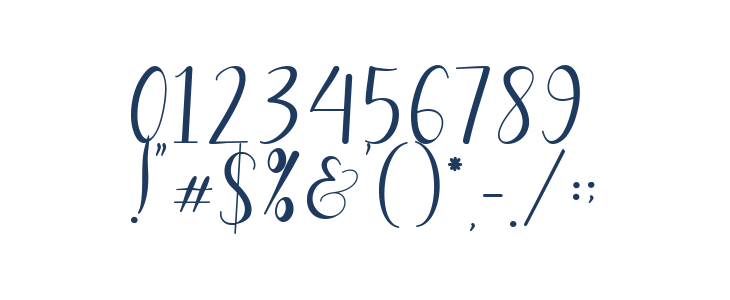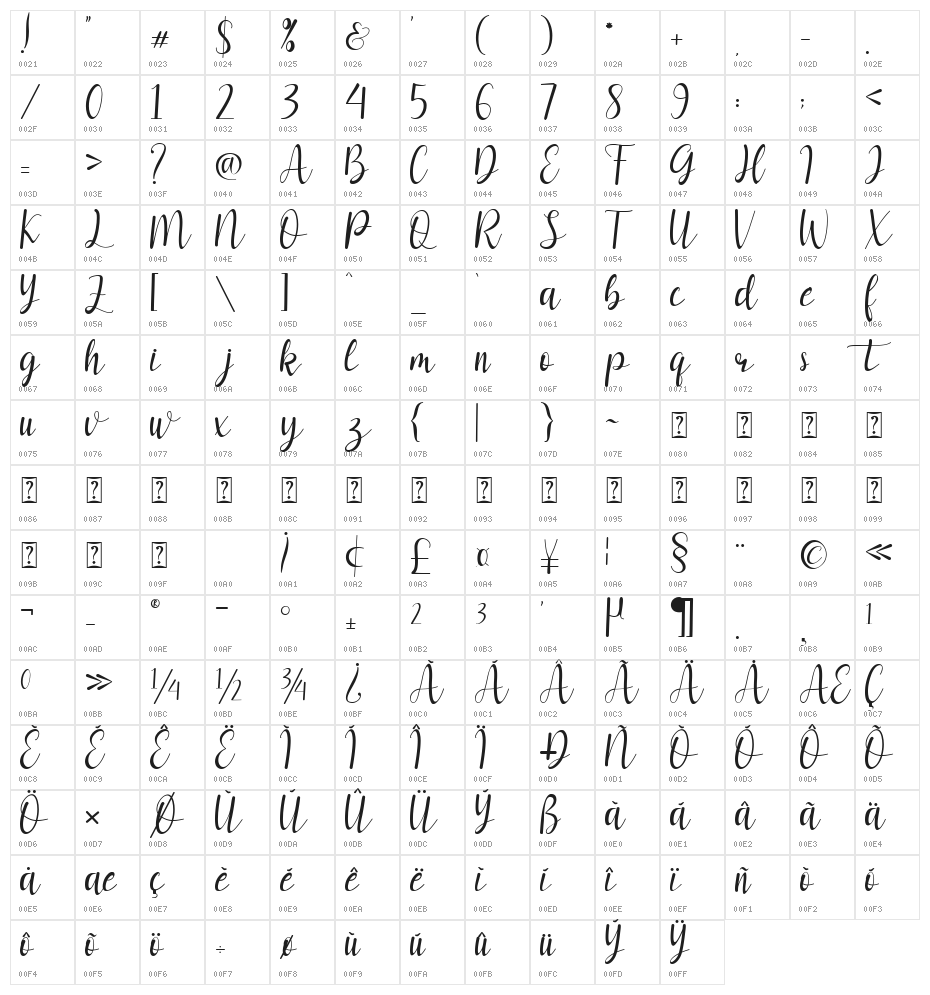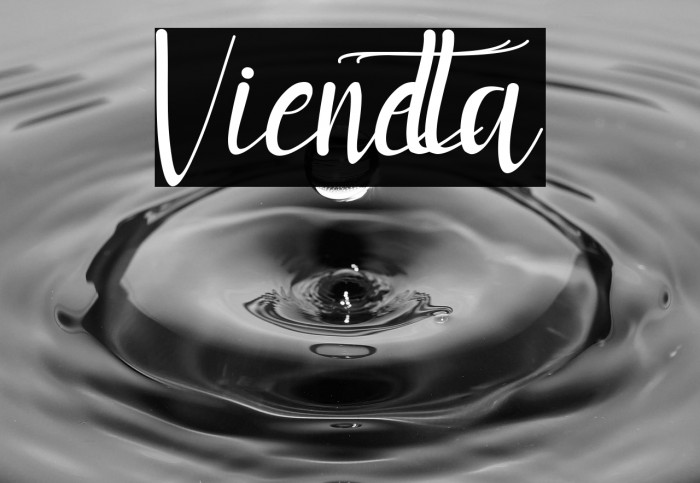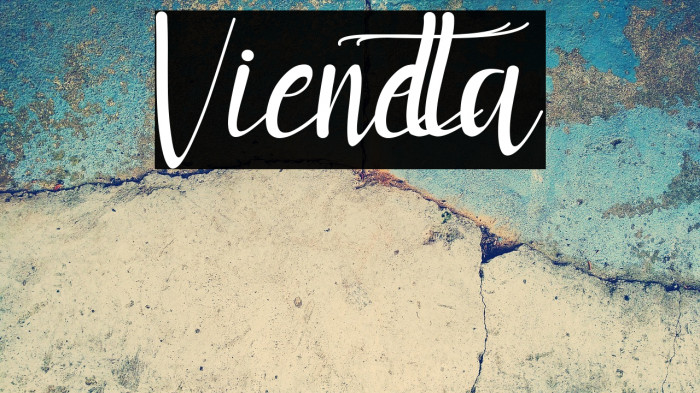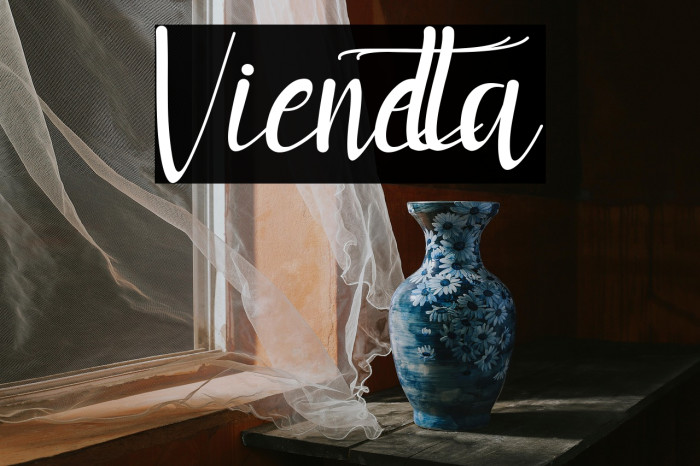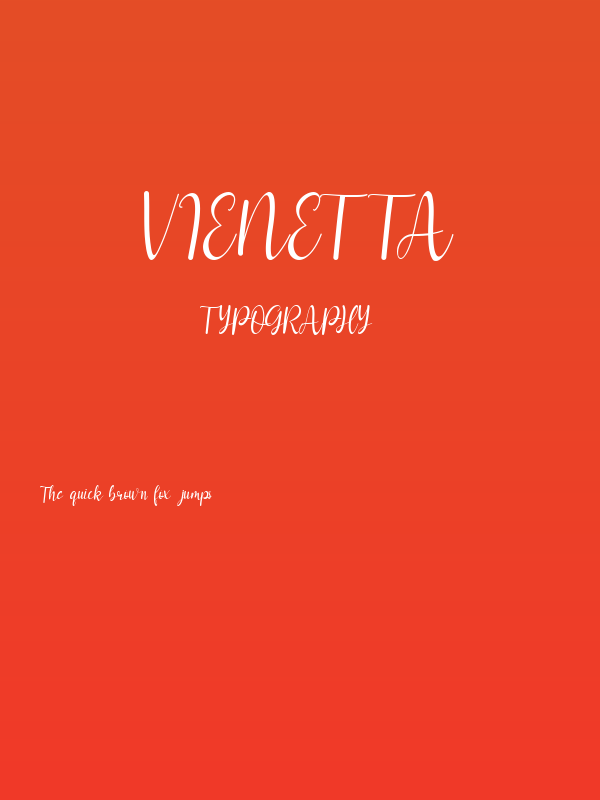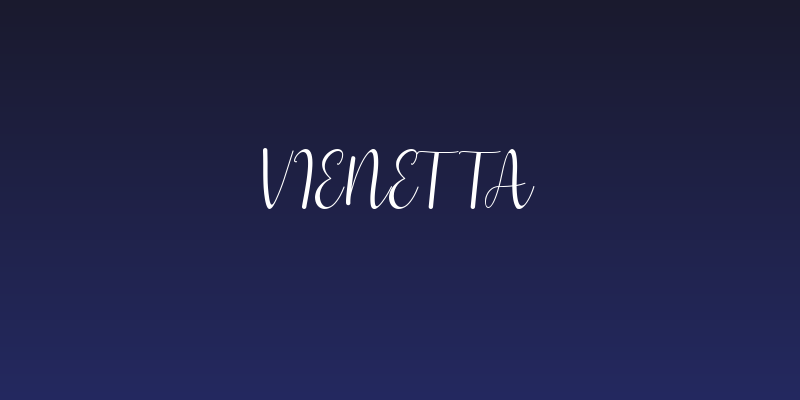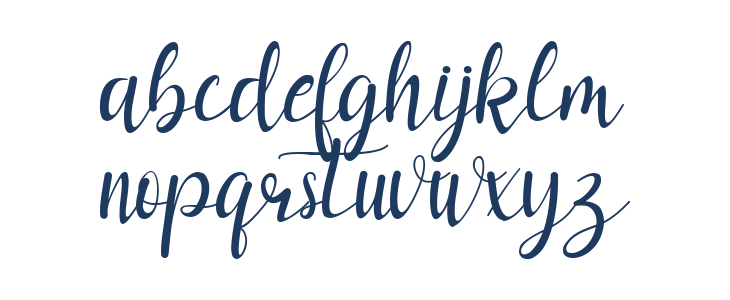
Vienetta Font
Vienetta Description
This elegant script font features a flowing, cursive style with a modern twist. The uppercase letters are tall and graceful, with sweeping curves and delicate loops that give a sense of movement and fluidity. The lowercase letters maintain a consistent style, with rounded forms and smooth connections between characters. The numerals are stylish and complement the overall aesthetic, while the special characters add versatility to the font. The strokes vary in thickness, providing a medium contrast that enhances readability while maintaining a sophisticated appearance. This font is perfect for projects that require a touch of elegance and charm.